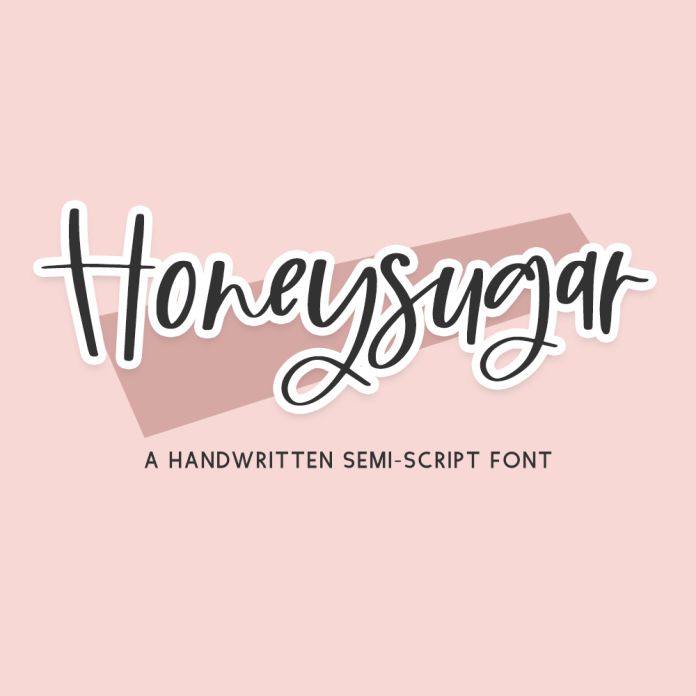
Introducing Honeysugar, a cute modern calligraphy font.
Honeysugar is best for:
- feminine, crafty projects with your Silhouette machine, or your SVG design business